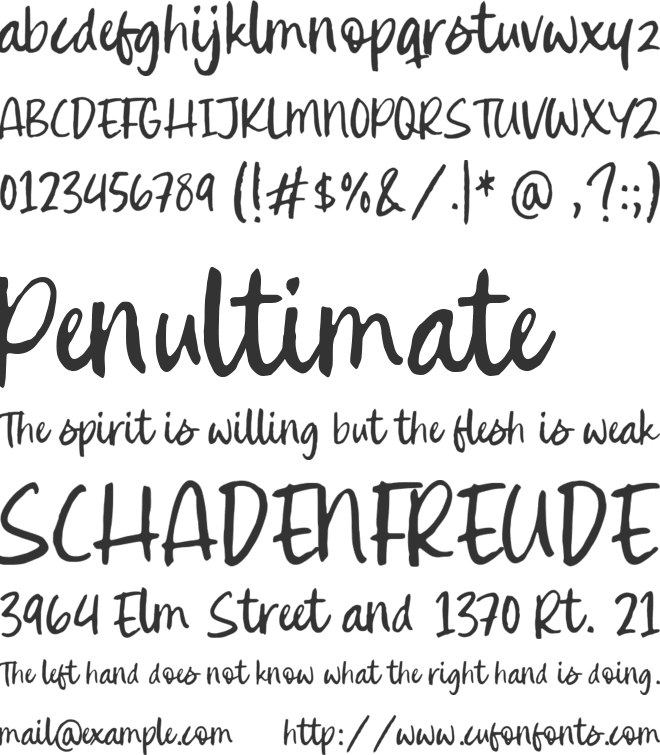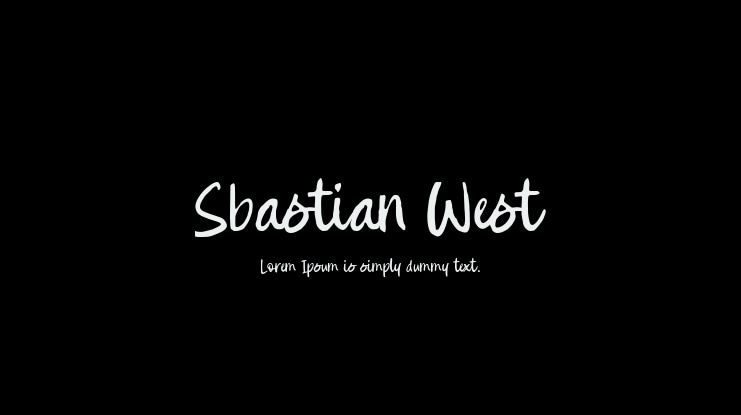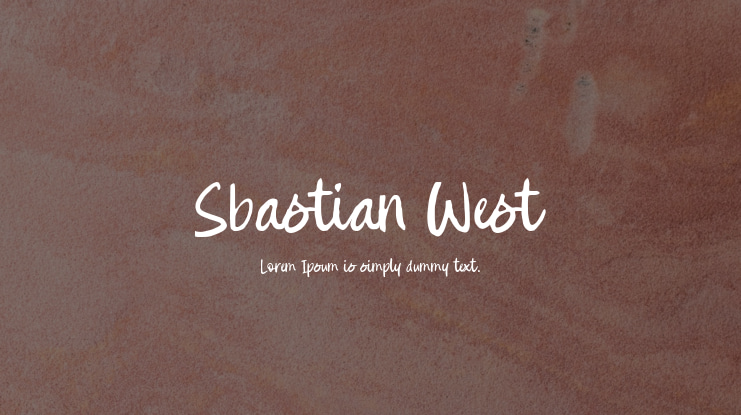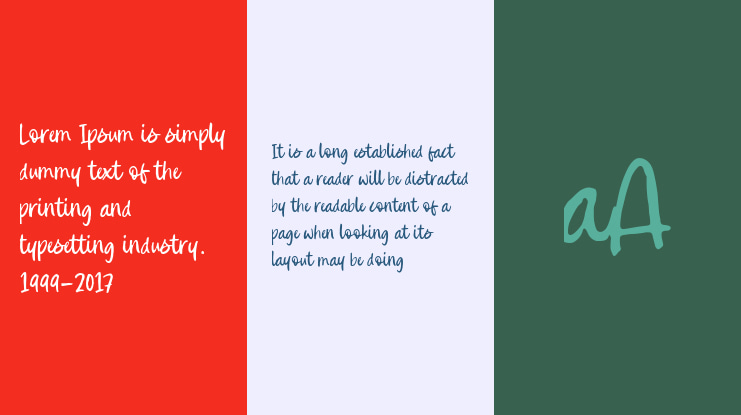
Sbastian West Font
**Introduced by Timurtype Studio!**
**Sbastian West: A Handbrushed Script Font**
This charming handbrushed script font exudes a relaxed, artistic flair. Its fluid, flowing lines and expressive strokes create a sense of spontaneity, making it perfect for adding a unique, handcrafted feel to invitations, branding, and creative projects. The combination of elegance and casual ease in Sbastian West ensures it stands out while maintaining a warm, approachable vibe.
Sbastian West also supports multiple languages.
**Font Features:**
• Full set of standard alphabet and punctuation